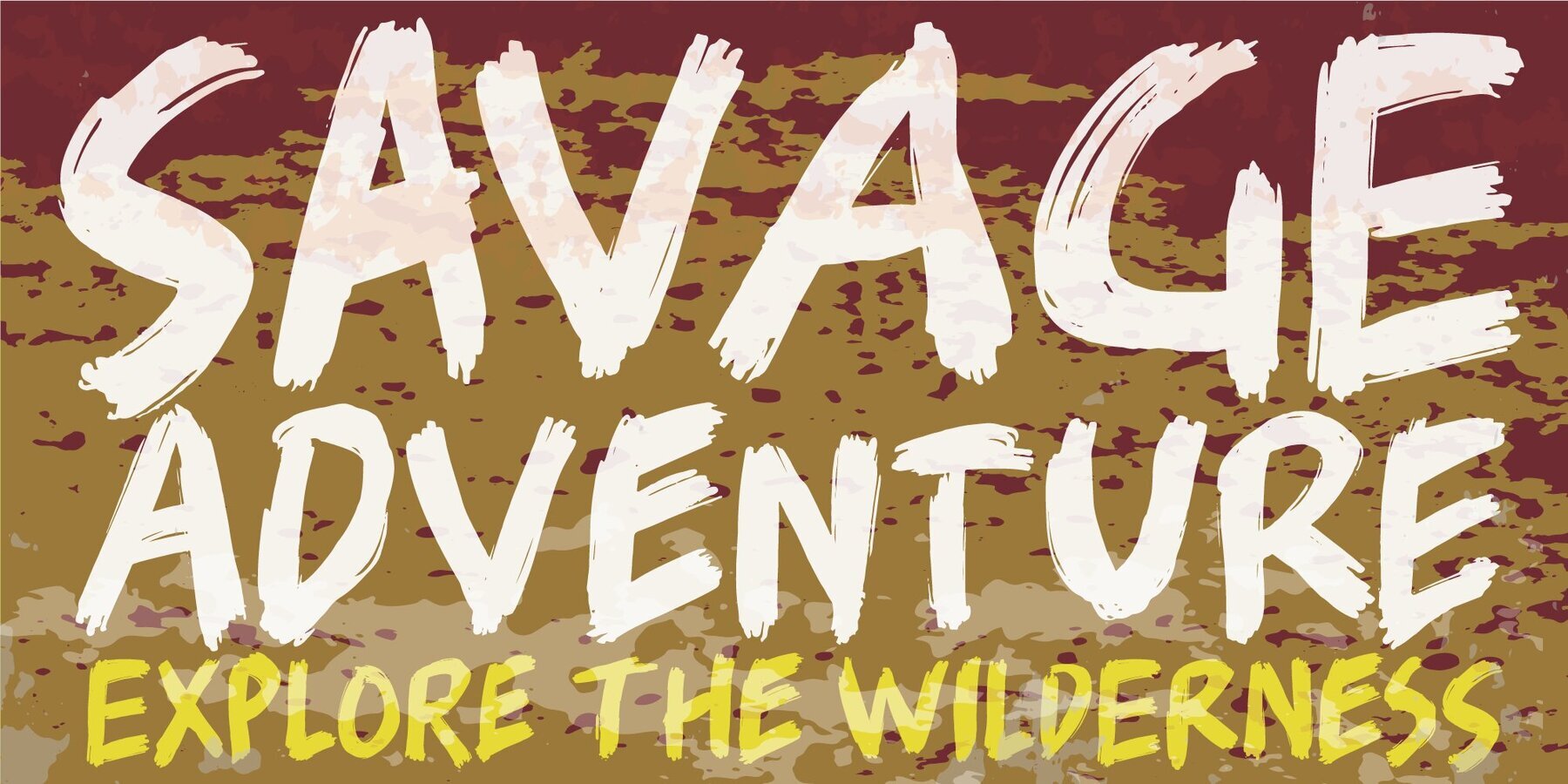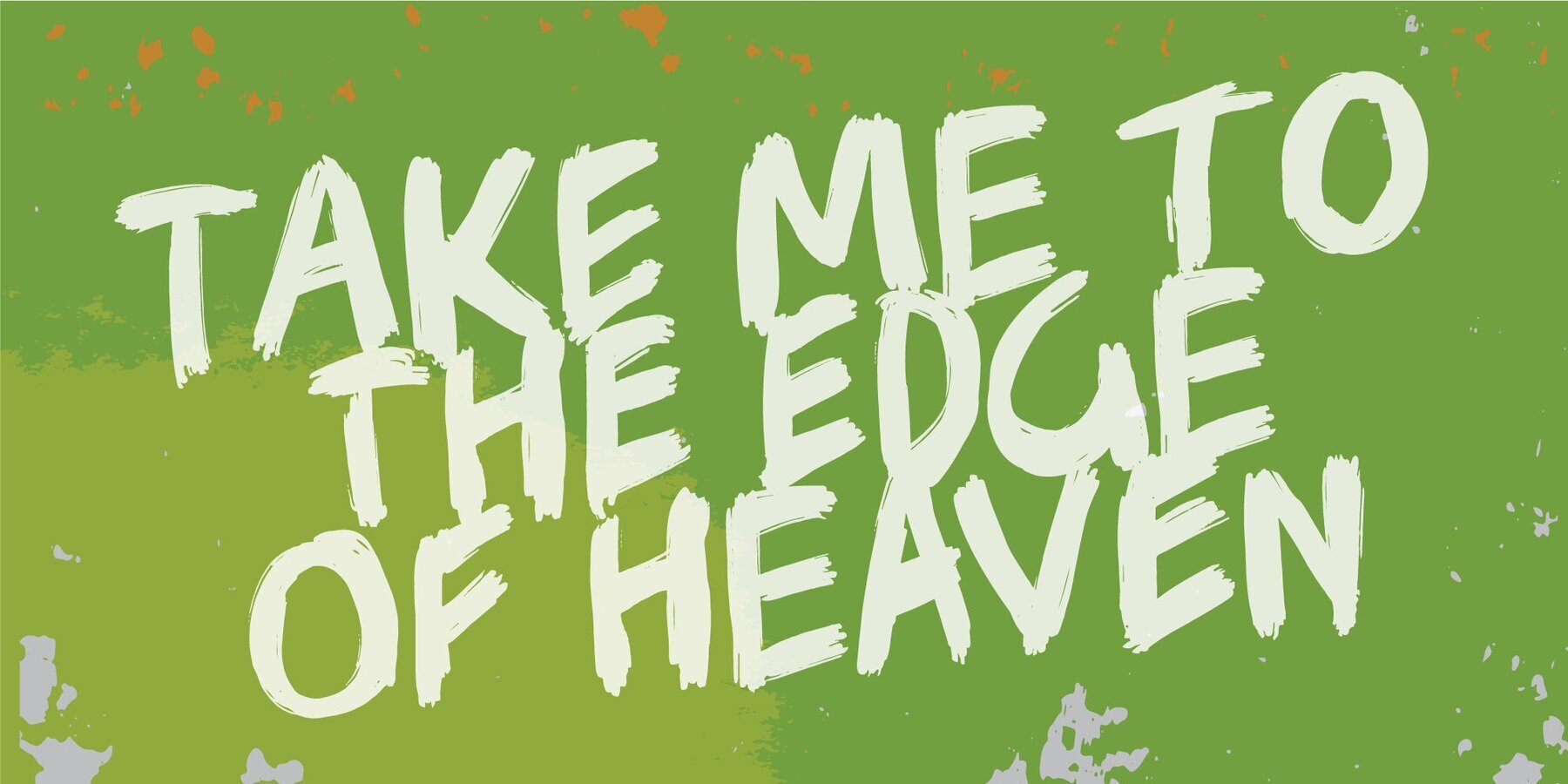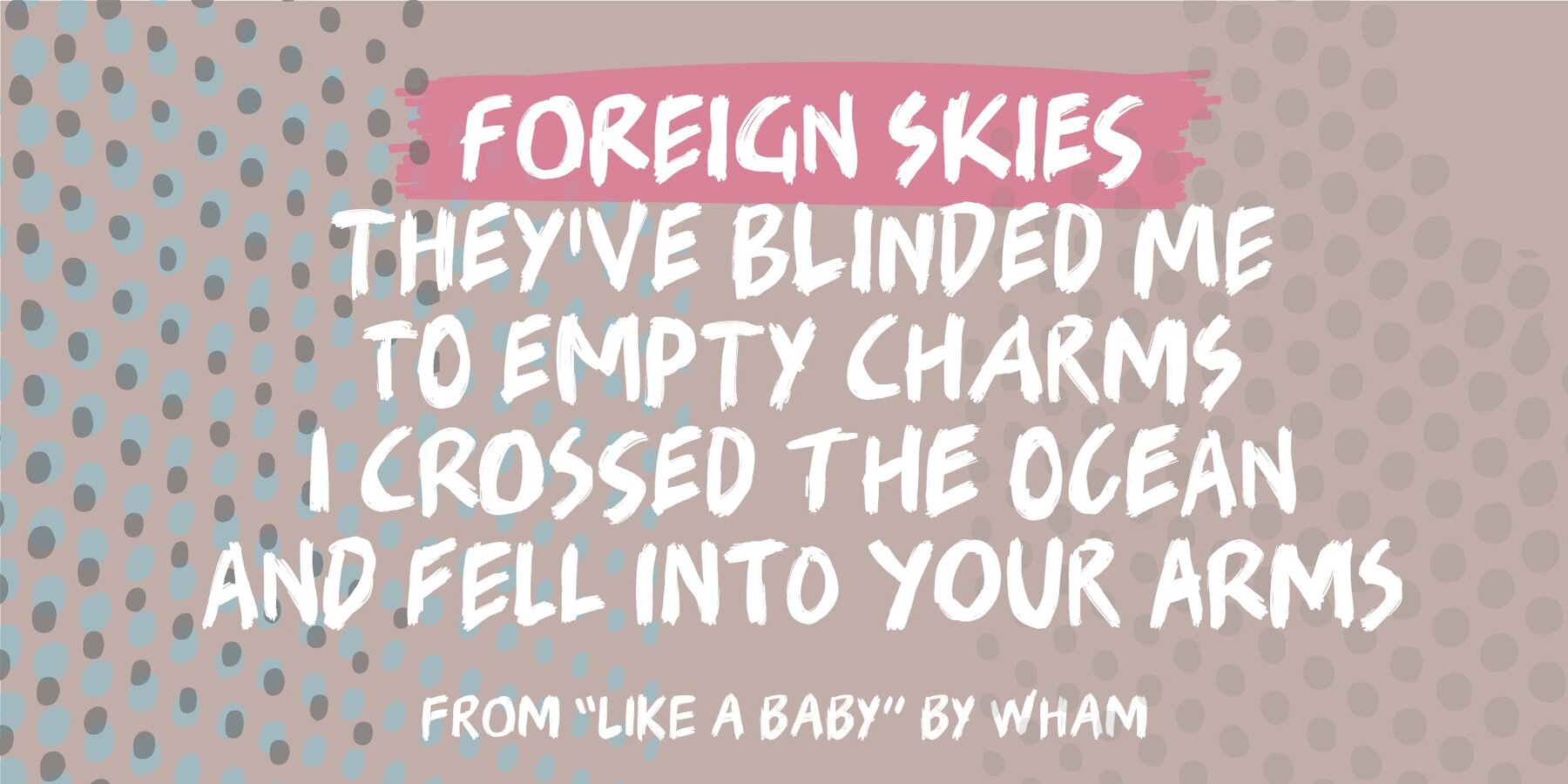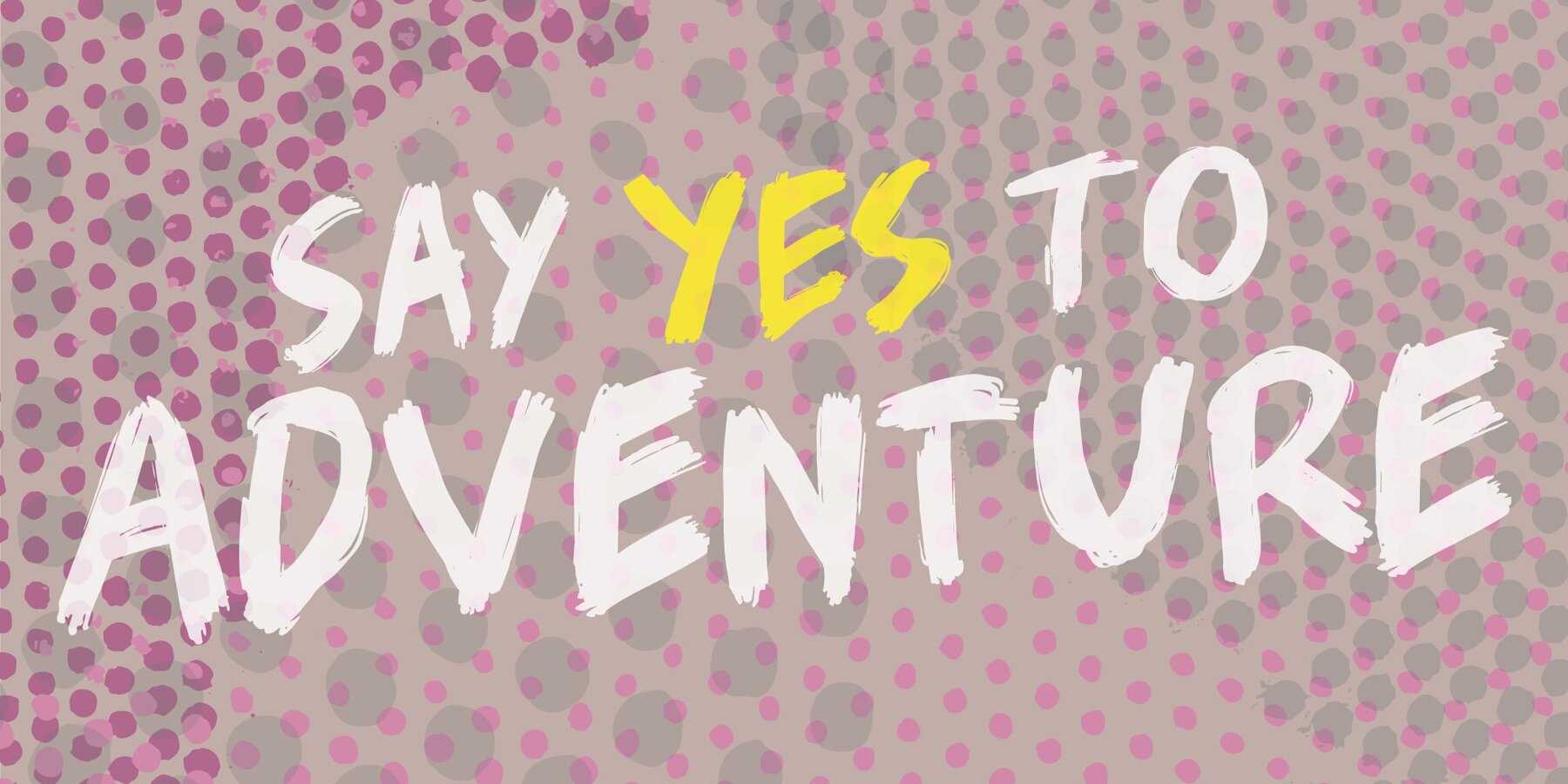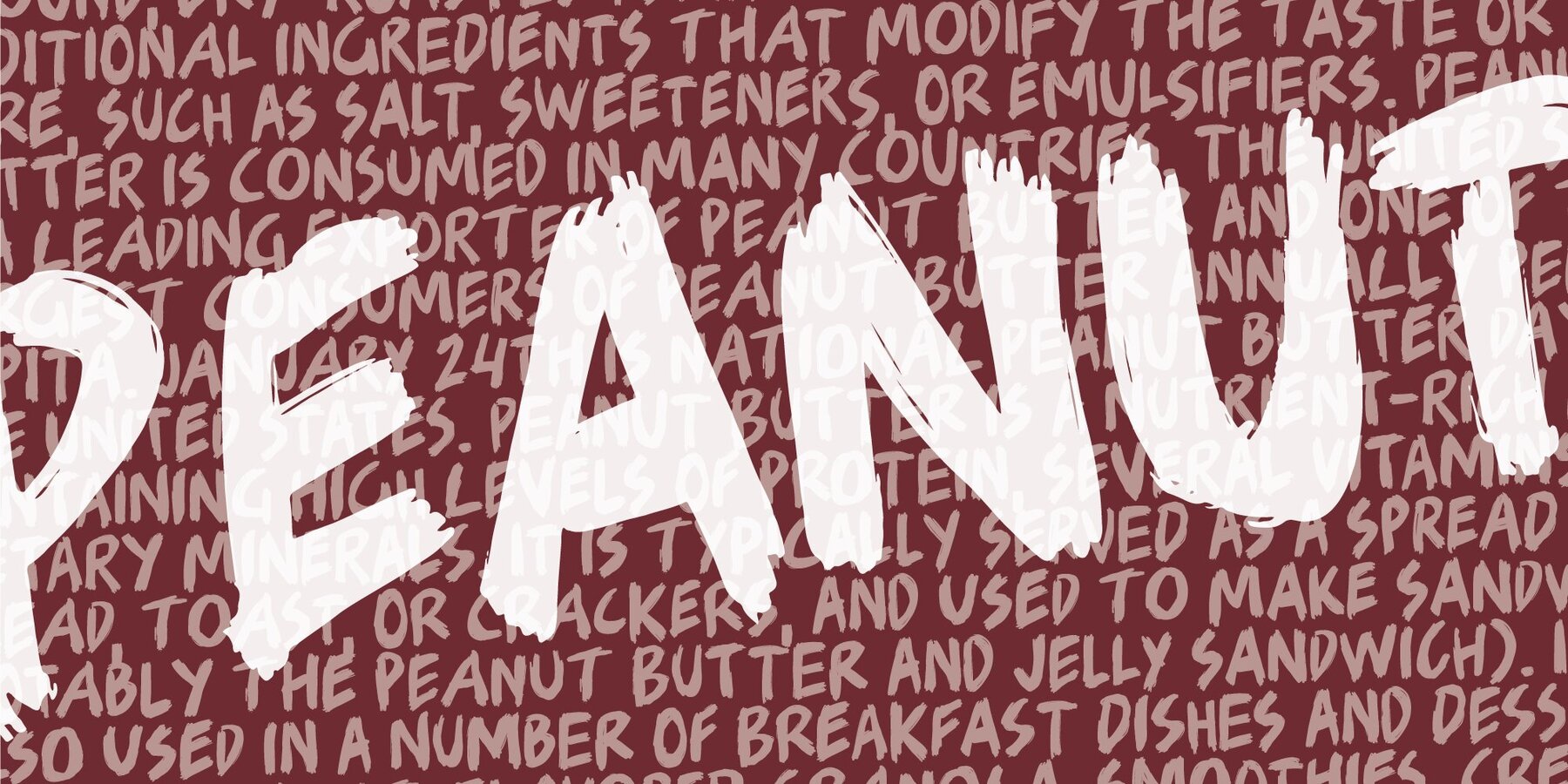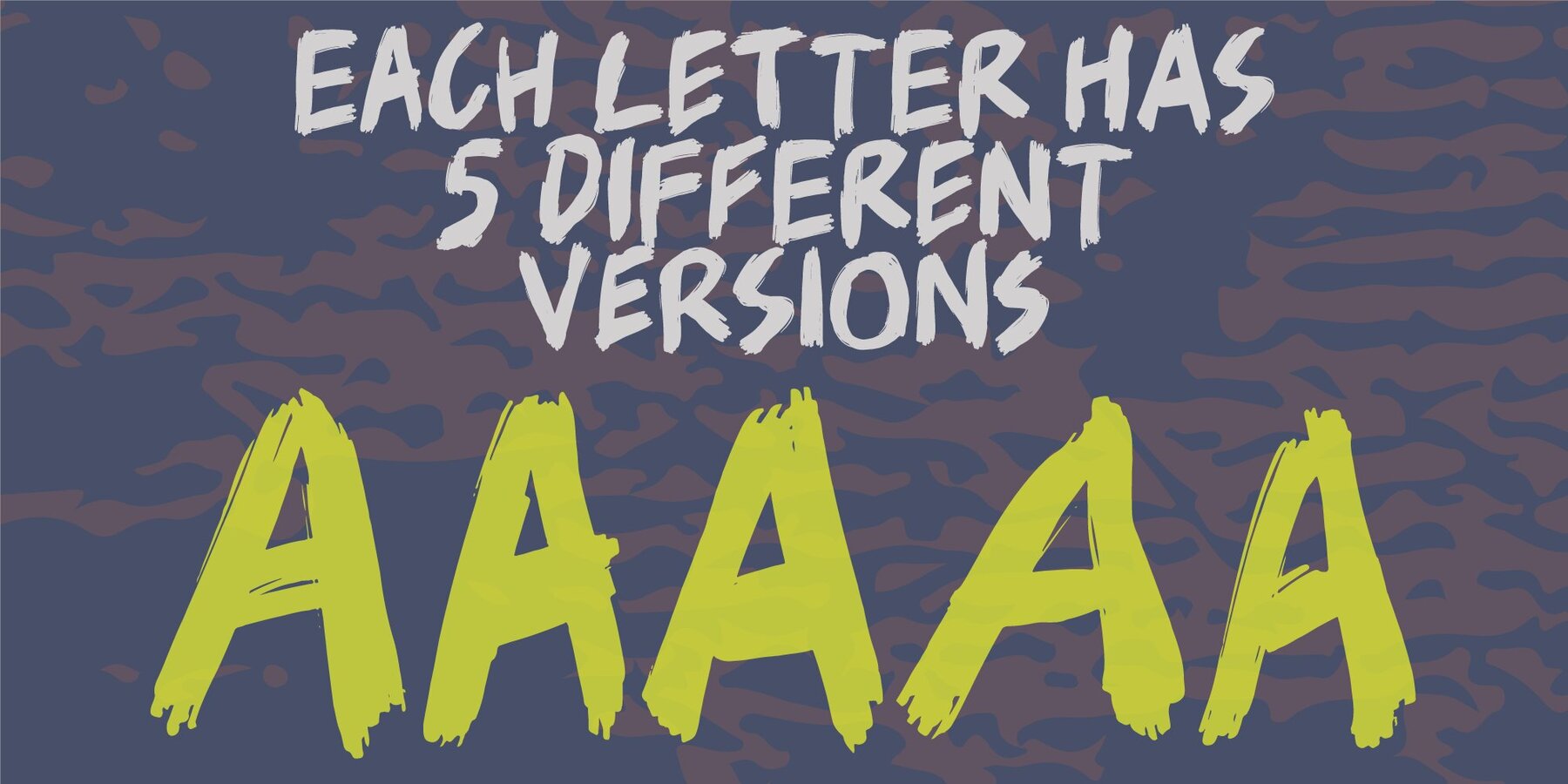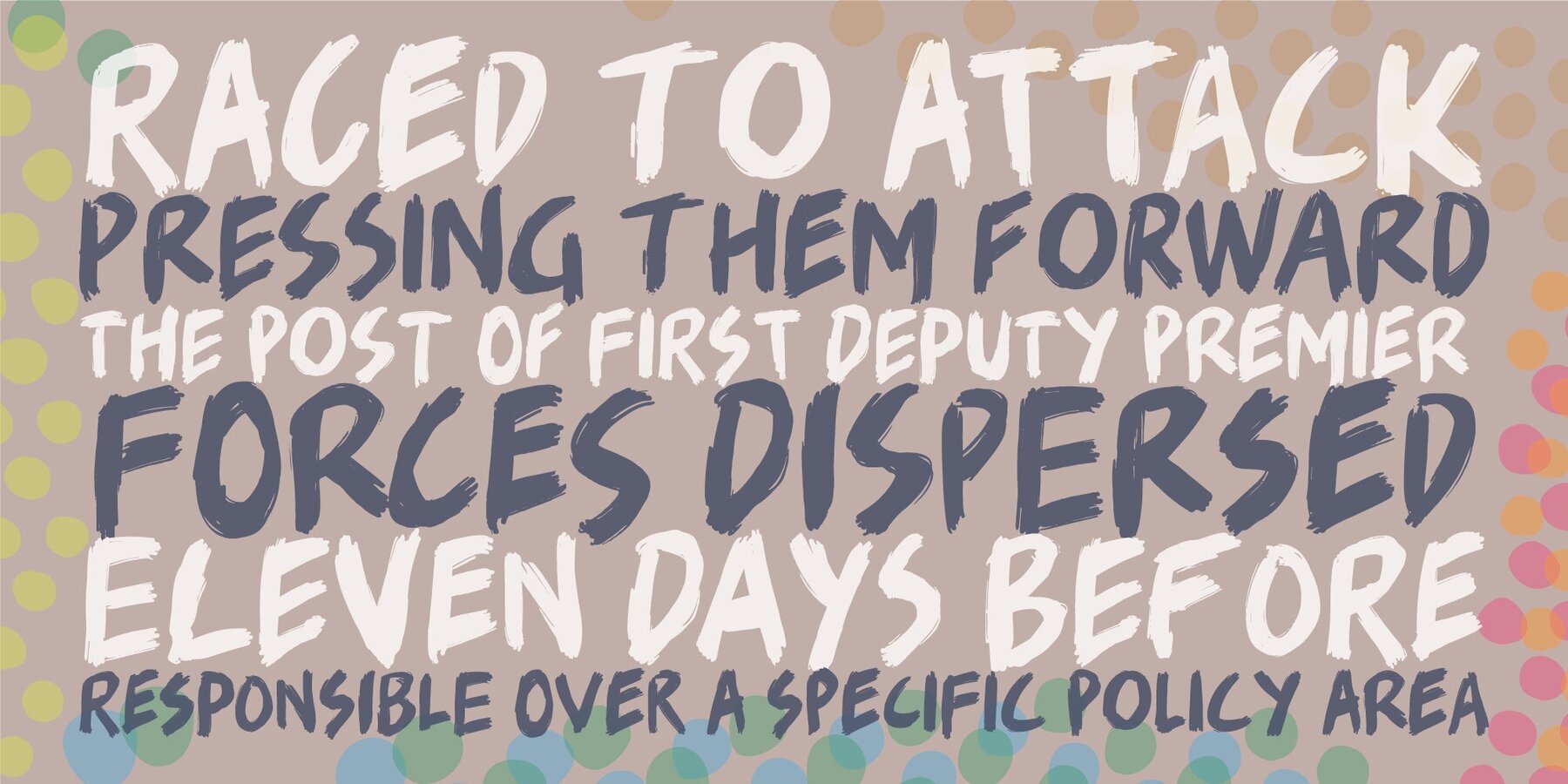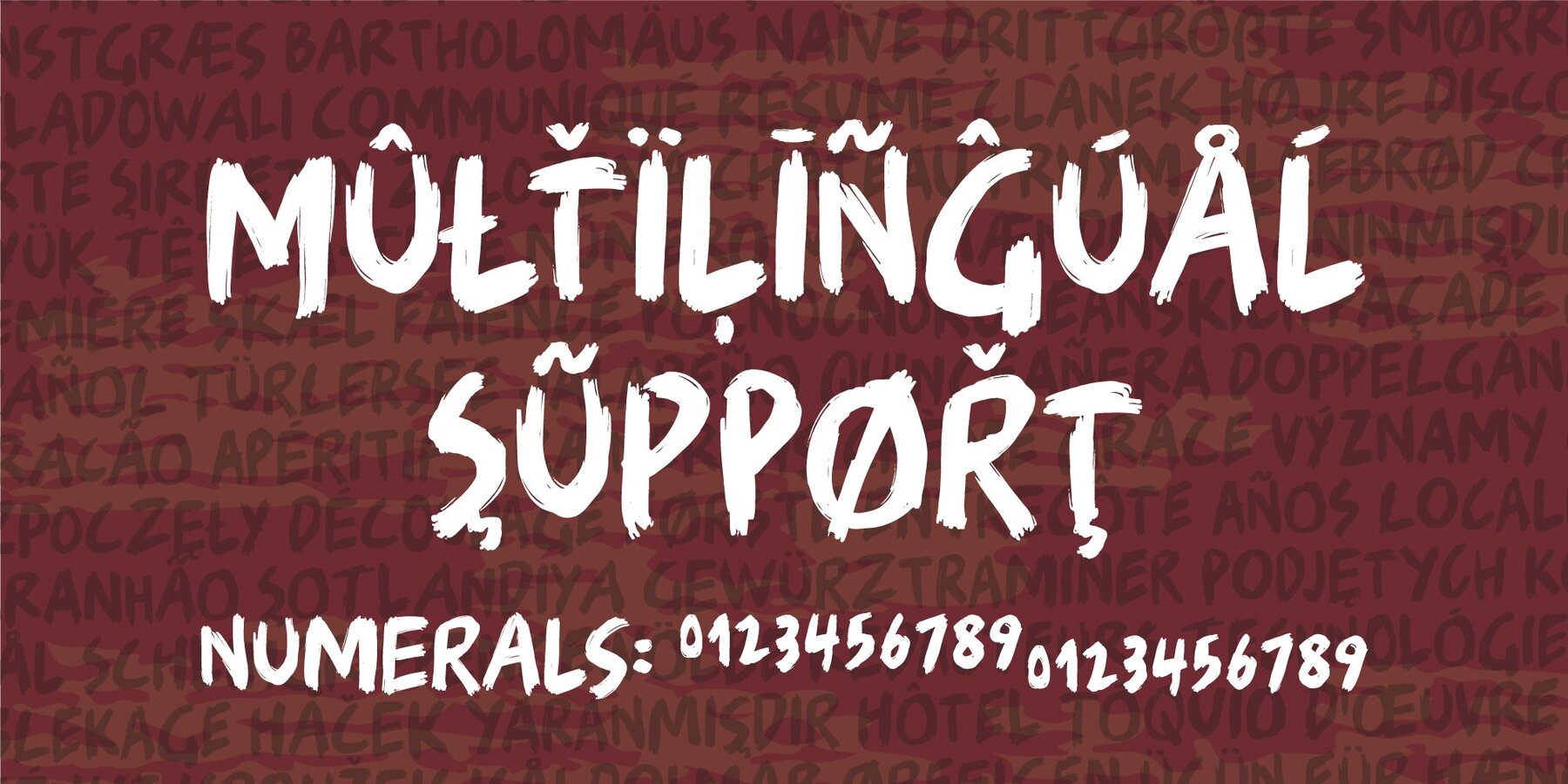
Foreign Skies is that hastily written brush font you're going to need, if you're looking for an authentic brush font. I am aware that Foreign Skies doesn't always meet the criteria of a professional signletteres demands of "perfect strokes" - but that is the basic idea! It is super legible, even at small sizes, but at the same time it is uneven, bouncy, clumsy and rough!